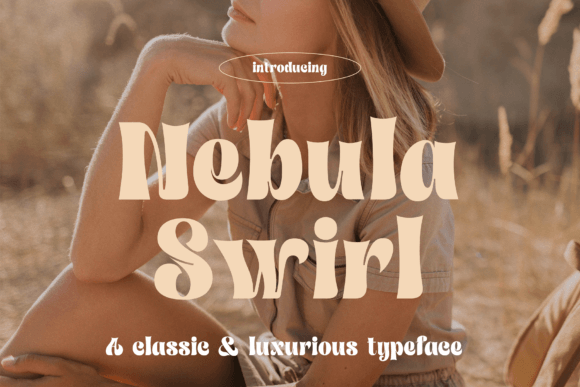
Journey into the realm of captivating typography with Nebula Swirl, a display font that dances across your designs with its sinuous curves and dynamic flow. Inspired by the celestial wonders of swirling nebulas, this font captivates with its striking letterforms that resemble ethereal brushstrokes.
Unleash your creativity with Nebula Swirl, the ultimate choice for poster headings. Its bold and expressive characters command attention, making your messages leap off the page. Whether you're crafting eye-catching advertisements, thought-provoking quotes, or striking headlines, Nebula Swirl will leave an indelible mark on your audience.
With Nebula Swirl, you'll discover a font that transcends trends, seamlessly adapting to a myriad of design styles. Its modern and elegant aesthetic lends itself perfectly to contemporary projects, while its inherent classicism ensures it will stand the test of time. Experience the versatility of Nebula Swirl as it effortlessly elevates invitations, branding materials, social media graphics, and digital content.
Embrace the power of suggestion with Nebula Swirl, a font that sparks imagination and invites endless possibilities. Let its graceful lines evoke a sense of wonder and intrigue, leaving your audience captivated by the allure of your creations. Nebula Swirl is more than just a font; it's an artistic expression that transforms words into visual masterpieces.